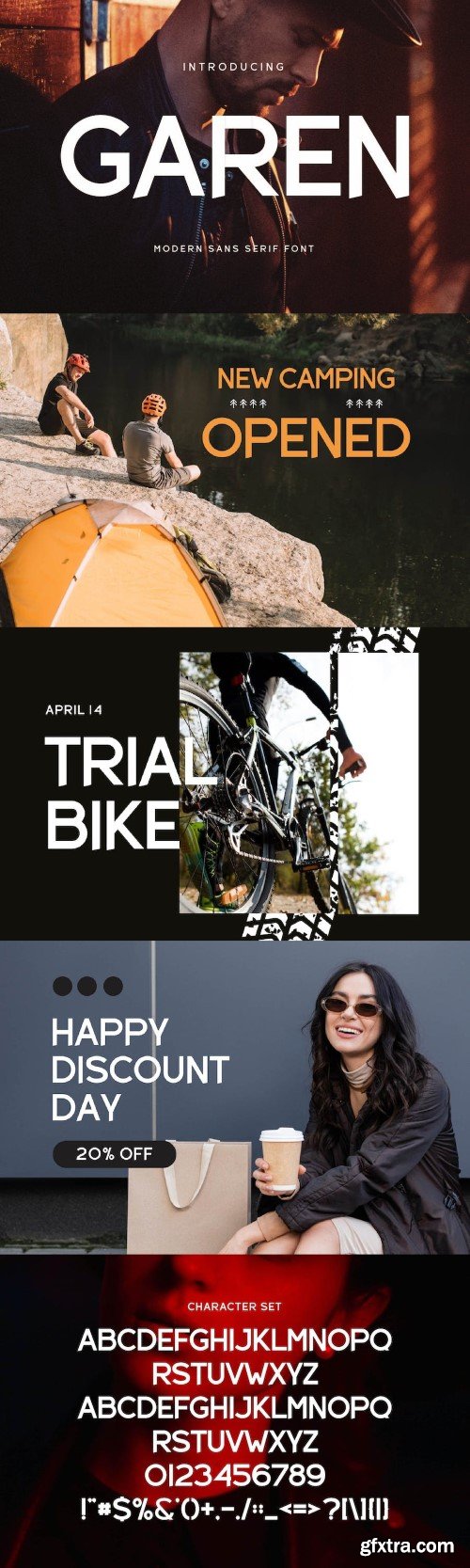
Garen Sans Font Typeface inspired by the famous minimalist logo perfect for the purposes of designing templates, brochures, videos, advertising branding, logos, invitation, layout design, elegant crafting, beauty design and other.